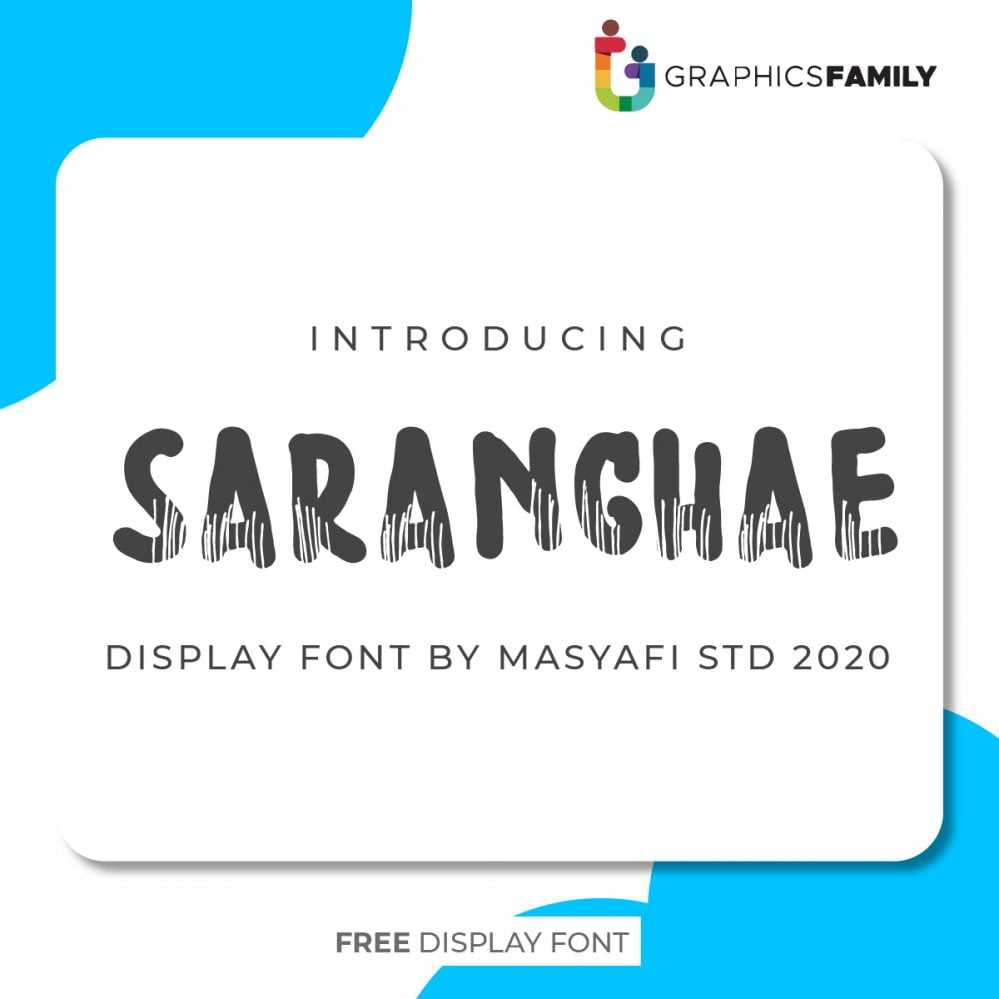
Saranghae Font Saranghae is a fun and whimsical display font. It will turn any creative idea into a true standout. Get creative with its unique playfulness, and use it to brighten up any kids and school project!